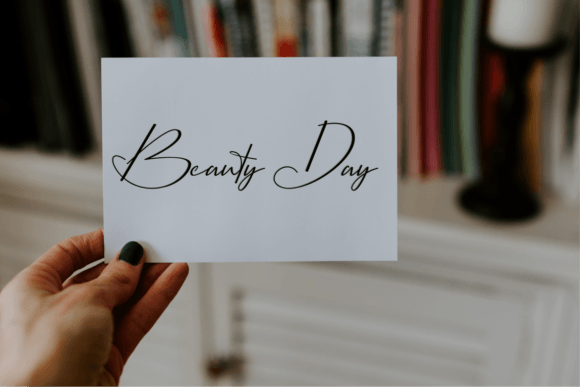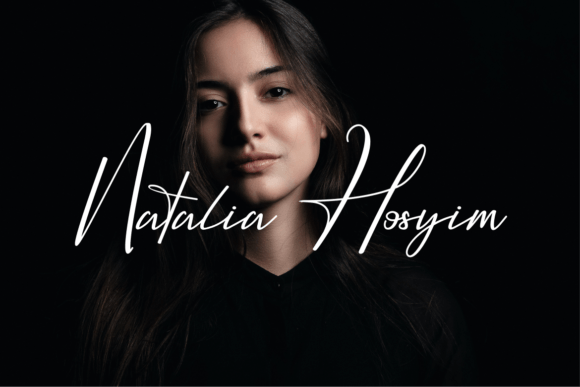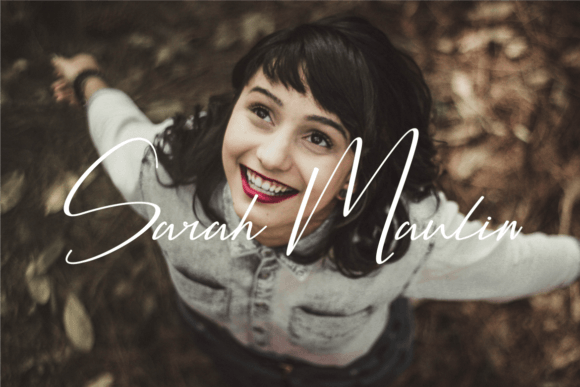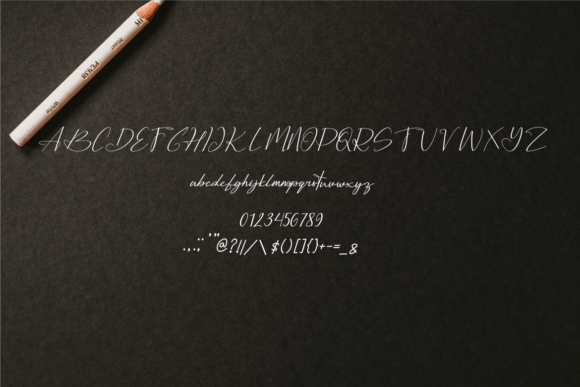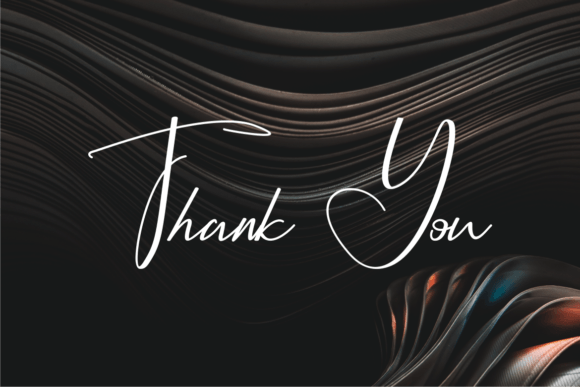
Introducing Auromagasit Font: The Ultimate Handwritten Font for Designers and Crafters
In the world of typography, a well-crafted font can make all the difference in creating a lasting impression. For designers and crafters looking for a unique and authentic touch, Auromagasit Font is an excellent choice. This thin and authentic handwritten font is perfect for a wide range of branding projects, from logos and t-shirt printing to packaging and more.
What Makes Auromagasit Font Stand Out?
Auromagasit Font boasts a distinctive, hand-crafted style that sets it apart from more generic fonts. Its thin strokes and elegant curves give it a sophisticated, high-end feel that’s perfect for designers and crafters looking to add a touch of personality to their work. Whether you’re creating a logo, printing t-shirts, or designing packaging, Auromagasit Font is sure to make your project stand out.
Key Features of Auromagasit Font
- Authentic Handwritten Style: Auromagasit Font features a genuine, handwritten look that’s perfect for creating unique and eye-catching designs.
- Thin Strokes: The font’s thin strokes give it a delicate, elegant feel that’s perfect for a wide range of design applications.
- Versatile: Auromagasit Font is suitable for a wide range of branding projects, from logos and t-shirt printing to packaging and more.
- Easily Readable: Despite its thin strokes, Auromagasit Font is easy to read, making it perfect for designs that require a clear and concise message.
Use Cases for Auromagasit Font
Auromagasit Font is an incredibly versatile font that can be used in a wide range of design applications. Here are some examples of how you can use this font to elevate your designs:
- Logo Design: Create a unique and memorable logo for your brand with Auromagasit Font.
- T-Shirt Printing: Add a personal touch to your t-shirt designs with Auromagasit Font.
- Packaging Design: Use Auromagasit Font to create eye-catching packaging that stands out on store shelves.
- Stationery Design: Add a touch of elegance to your stationery designs with Auromagasit Font.
Why Choose Auromagasit Font?
With so many fonts available, why choose Auromagasit Font? Here are just a few reasons why designers and crafters love this font:
- Unique Style: Auromagasit Font features a distinctive, hand-crafted style that’s sure to set your designs apart.
- High-Quality: Auromagasit Font is a high-quality font that’s designed to produce crisp, clear results.
If you’re looking for a unique and authentic handwritten font for your design projects, Auromagasit Font is an excellent choice. With its thin strokes, elegant curves, and versatile design, this font is perfect for a wide range of branding projects. Whether you’re a designer or crafter, Auromagasit Font is sure to become a go-to font in your collection.